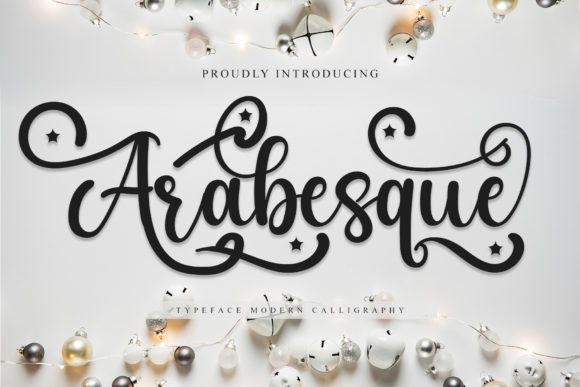
The Elegant Charm of Arabesque Font: A Designer’s Delight
A Honest Review of Arabesque Font
So, what makes Arabesque font so special? Let’s take a closer look:
- ✨ Elegant and classy design that’s perfect for high-end projects
- 💫 Delicate and refined, making it perfect for feminine or luxury brands
- 📚 Supports OpenType features, allowing for advanced typography control
While Arabesque font is a stunning addition to any design, there are a few quirks to keep in mind:
- 🤔 Some users may find the font a bit too delicate for certain projects, such as bold or edgy designs
- ⚠️ May not be suitable for body text or long-form content due to its script nature
Similar Fonts or Alternatives to Arabesque Font
If you love the elegance of Arabesque font, you might also enjoy these similar fonts:
- Pacifico: A beautiful, modern script font with a relaxed, elegant feel
- Great Vibes: A stylish, handwritten font with a sophisticated and refined look
- Alex Brush: A lovely, cursive font with a whimsical and elegant feel
- Carolyna Pro: A stunning, script font with a luxurious and refined look
The Backstory of Arabesque Font
The story behind Arabesque font is one of passion and dedication. The font was crafted with love and care by a team of designers who wanted to create a beautiful and elegant script font that would inspire creativity and sophistication. With its delicate lines and refined features, Arabesque font is the perfect choice for designers who want to add a touch of luxury to their projects.
| What is the Arabesque font? | Arabesque font is a lovely and delicate script font that exudes elegance and class. |